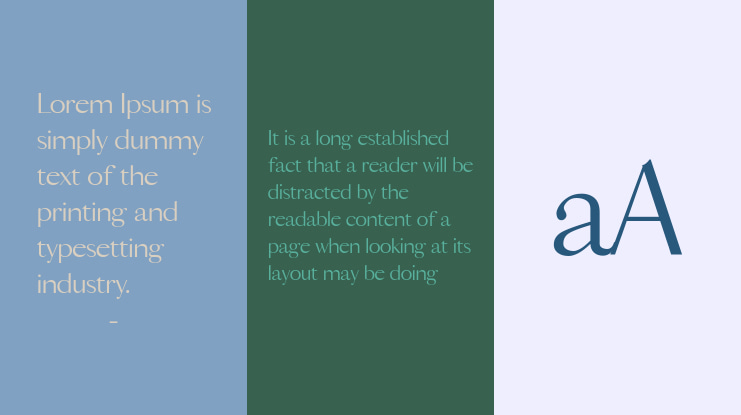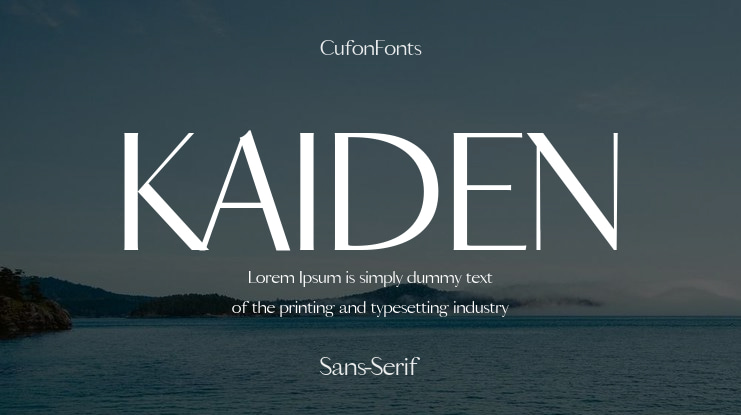
KAIDEN Font
🎨 Font Name: Kaiden by Minimalist Art Studio
🎨 Font Description: KAIDEN is a delicate sans serif with multilingual support and soft contrast, ideal for lifestyle branding, fashion packaging, and modern editorial design.
✔ Complete Latin set + multilingual diacritics
✔ Alternates, stylistic sets & ligatures
✔ Numbers, small caps, and extended punctuation
✔ Bonus italics and family styles